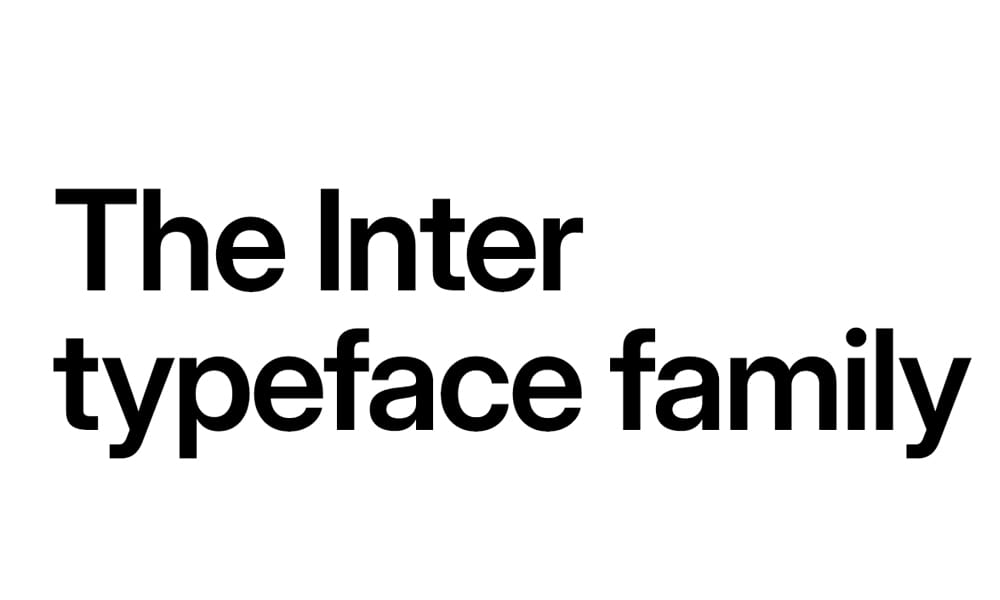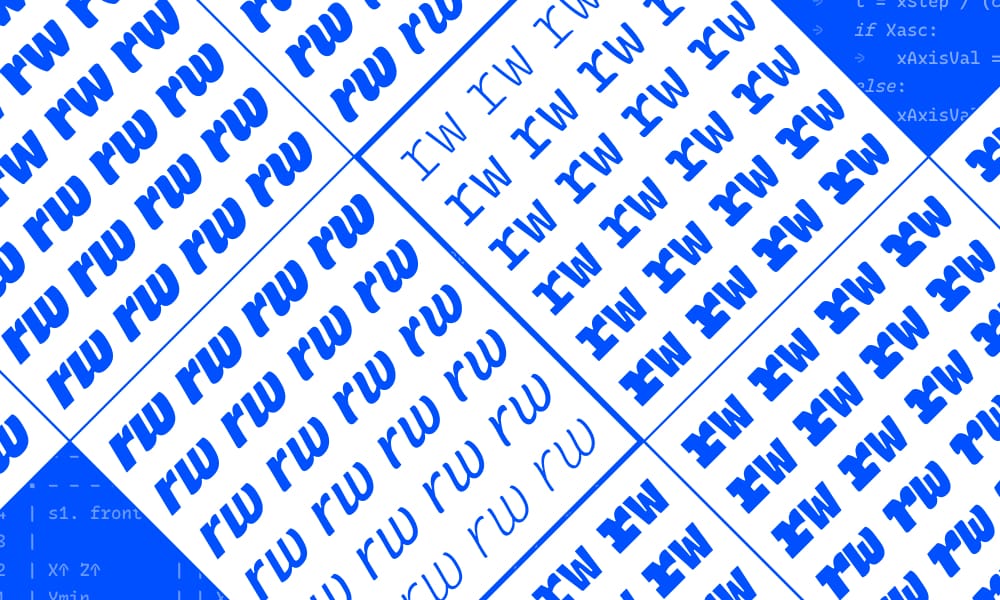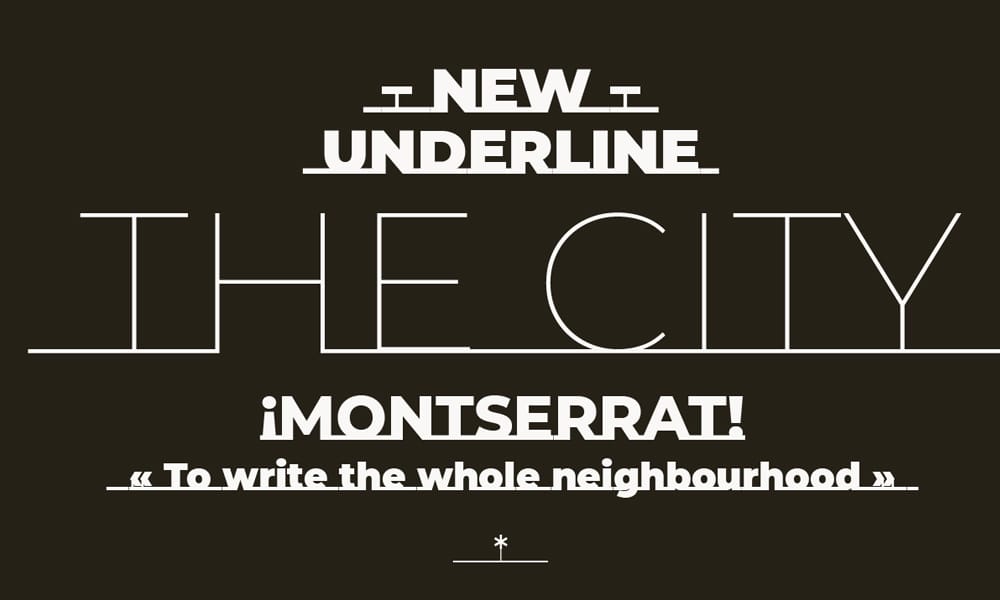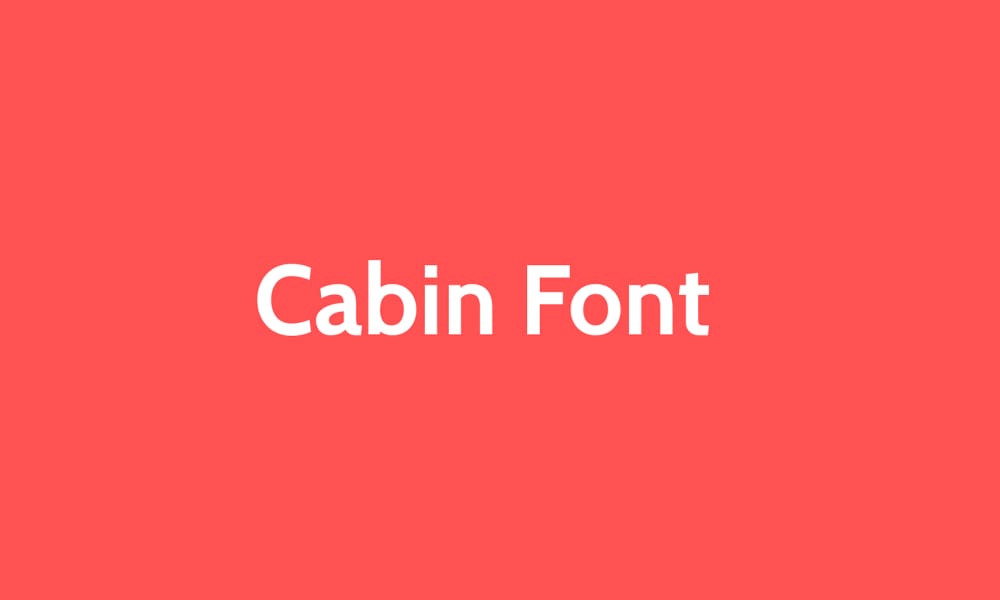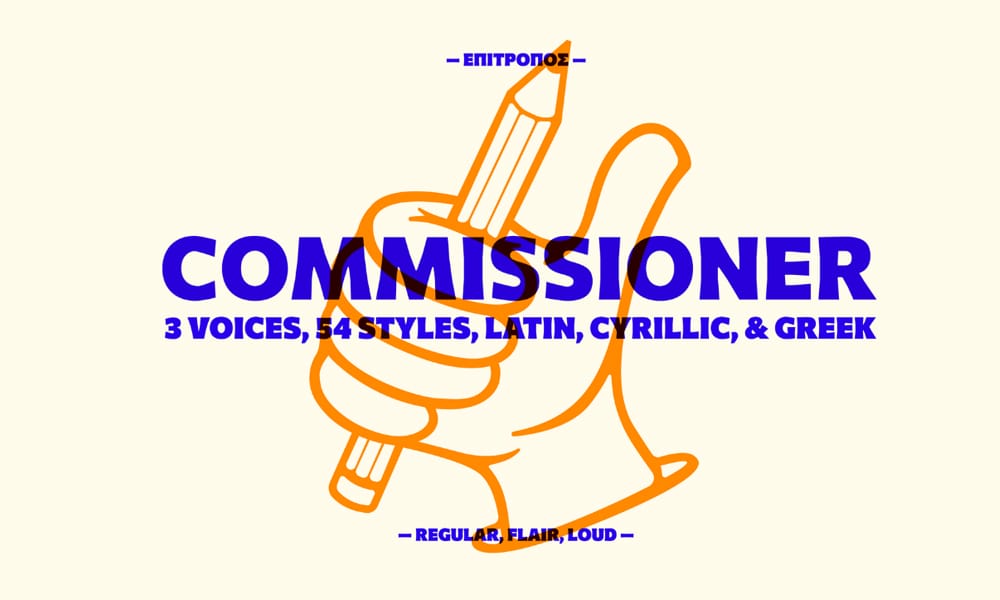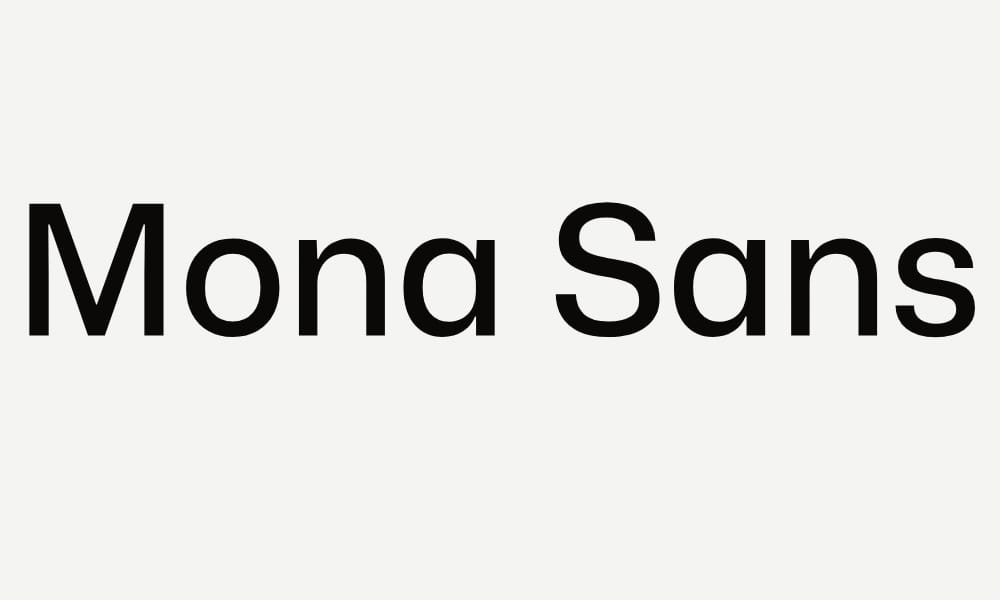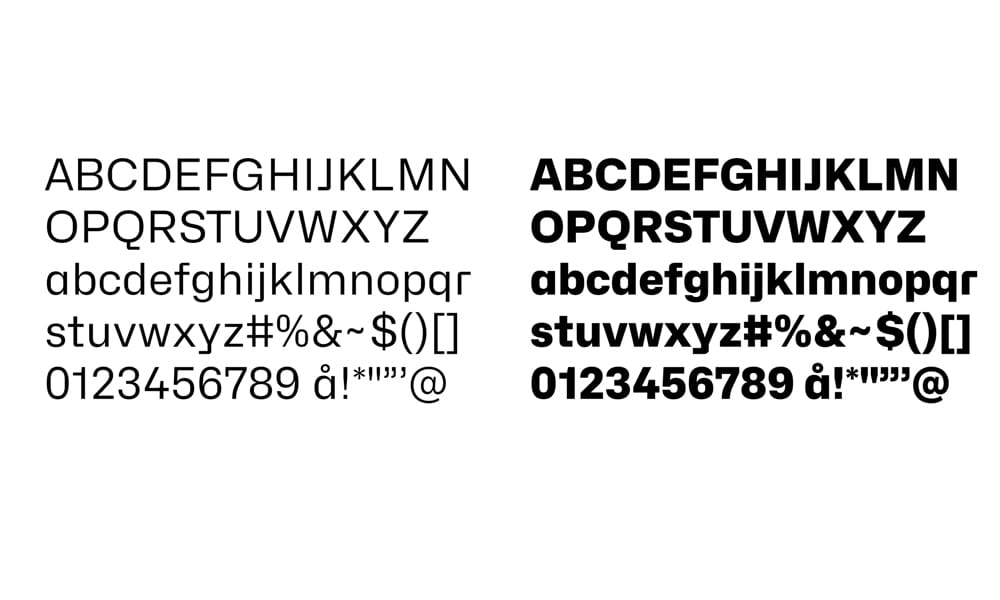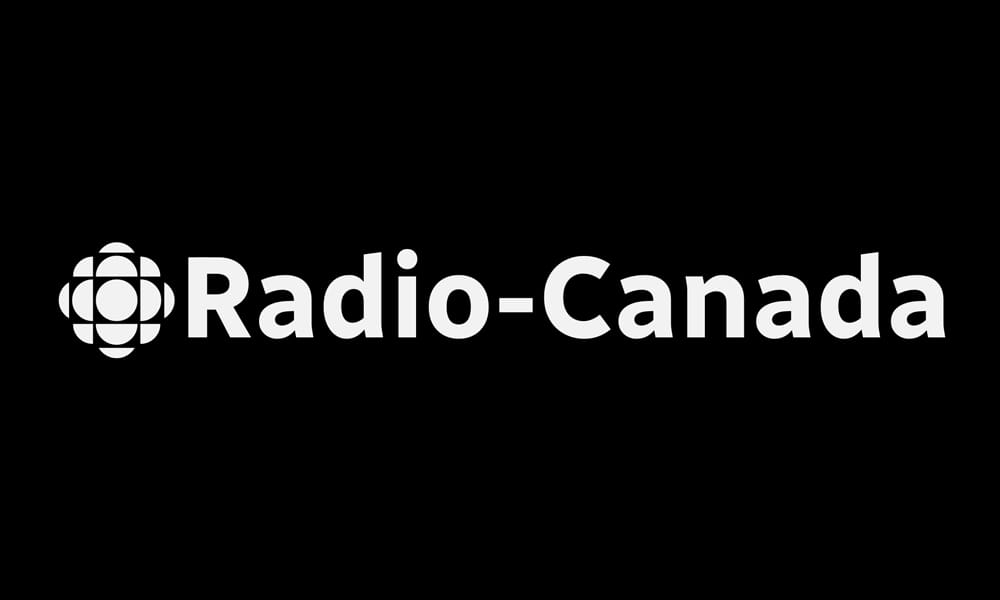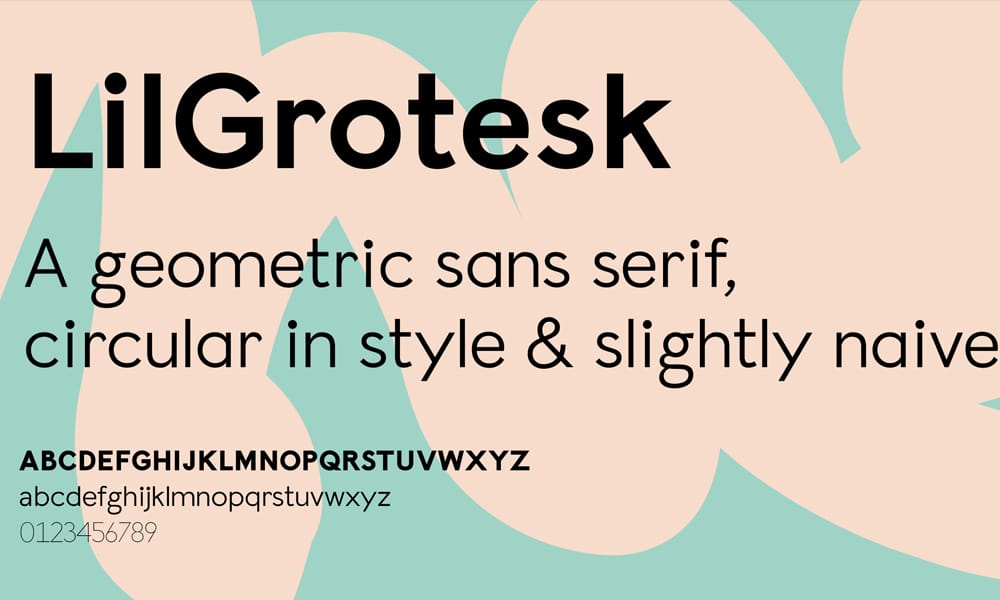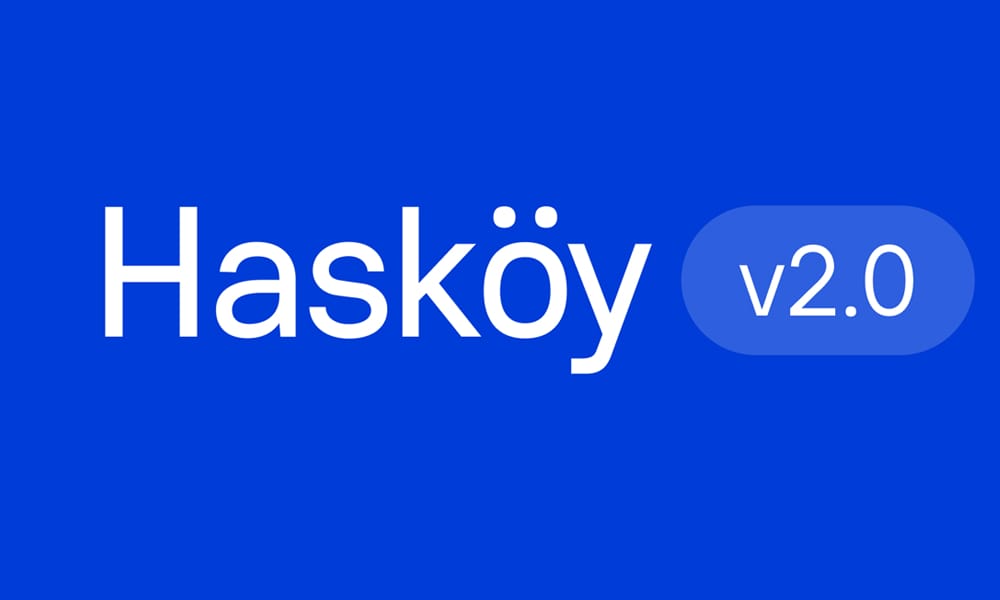
58 Best Free Variable Fonts That Will Transform Your Web Design in 2025
Picture this: You’re tweaking a headline for the third time, manually swapping between font files to find the perfect weight. Regular feels too thin, but bold is overkill. You need something in between—like weight 575. Impossible with traditional fonts, right?
Enter variable fonts.
A variable font is a single font file that contains multiple styles, weights, and variations of a typeface. Unlike traditional static fonts that require separate files for bold, italic, or different weights, variable fonts use adjustable axes (like weight, width, and slant) to provide infinite typography variations from one optimized file. This technology, introduced in the OpenType 1.8 specification back in 2016, reduces website loading times while giving designers unprecedented creative control.
I’ve spent weeks testing variable fonts on real projects—from corporate dashboards to creative portfolios—and the performance gains are undeniable. A typical font family might require 7-12 separate files totaling over 1MB. The variable equivalent? Often a single 300-500KB file with more design flexibility.
But here’s the challenge: finding high-quality free variable fonts with clear licensing and actually understanding how to implement them. Most roundups just throw links at you without context. Not this one.
This guide delivers 58 curated free variable fonts organized by category, complete with implementation details, real-world use cases, and honest assessments of where each font shines (and where it doesn’t). Whether you’re building a SaaS interface or a magazine-style blog, you’ll find your new typography workhorse here.
What is a Variable Font? (And Why You Should Care)
If you’ve been designing for the web for more than a few years, you remember the dark ages: importing five different font files just to get regular, italic, bold, and bold italic. Four files for one typeface family. Now multiply that by the number of fonts in your design system.
Variable fonts flip this model entirely.
Instead of discrete font files for each weight and style, a variable font contains axes of variation—essentially sliders that let you dial in any value within a range. The weight axis might go from 100 (super thin) to 900 (ultra black). But unlike traditional fonts where you’re stuck with 300, 400, 700, you can now use 365, 428, or 673.
The Technical Foundation
Variable fonts work through interpolation. The font file contains master designs at extreme points (like “thin” and “black” for weight), and the font rendering engine mathematically generates any intermediate style on the fly. This is why a single variable font can replace an entire font family.
There are two types of axes:
Registered Axes (standardized by W3C):
- wght (Weight): Controls stroke thickness from thin to black
- wdth (Width): Adjusts character width from condensed to extended
- slnt (Slant): Controls oblique angle (different from italic)
- ital (Italic): Binary on/off for true italic letterforms
- opsz (Optical Size): Optimizes for different sizes (like 12pt vs 72pt)
Custom Axes (designer-defined, always UPPERCASE):
- CASL (Casual): Used in Recursive font, shifts from formal to playful
- SOFT (Softness): Found in Fraunces, controls rounded vs sharp corners
- WONK (Wonky): Also in Fraunces, toggles quirky character alternates
- MONO (Monospace): Recursive’s axis from proportional to fixed-width
A Real-World Example
When I redesigned a fintech product’s typography system last year, we used Inter Variable. Previously, the design required Inter Regular, Medium, Semibold, and Bold—four separate files totaling 680KB. The variable version? A single 405KB file that also gave us fine-grained control to set headings at weight 650 instead of jumping from 600 to 700. The result: 40% smaller font payload and better visual hierarchy.
Variable Fonts vs Static Fonts: The Complete Breakdown
| Feature | Static Fonts | Variable Fonts |
| File Structure | Multiple files per family (4-12 typical) | Single file per family |
| HTTP Requests | 3-12 separate requests | 1 request |
| Design Flexibility | Fixed preset styles only | Infinite variations on axes |
| File Size (family) | 800KB-2MB+ combined | 300-600KB single file |
| Browser Support | Universal (100%) | Modern browsers (95%+) |
| CSS Complexity | Simple font-weight: bold | Requires font-variation-settings |
| Loading Performance | Slower with 3+ weights | Faster with 3+ weights |
| Responsive Typography | Limited control | Smooth responsive scaling |
When Variable Fonts Win
✅ You’re using 3+ weights or styles from a family
✅ You want smooth responsive typography (font-size scales with weight)
✅ Your audience uses modern browsers (which is 95%+ of web traffic)
✅ You need precise control (weight 456 instead of just 400 or 500)
Start Here:
If you’re building a SaaS or technical product → Inter
If you need both UI and code fonts → Recursive
If you want editorial elegance → Literata or Fraunces
If you need something bold and memorable → Climate Crisis or Big Shoulders
If you’re coding → JetBrains Mono or Iosevka
Pick two from this list, spend an hour implementing them, and you’ll never go back to static fonts. The performance gains alone justify the switch. The design flexibility is just a bonus.
Now go make something beautiful.